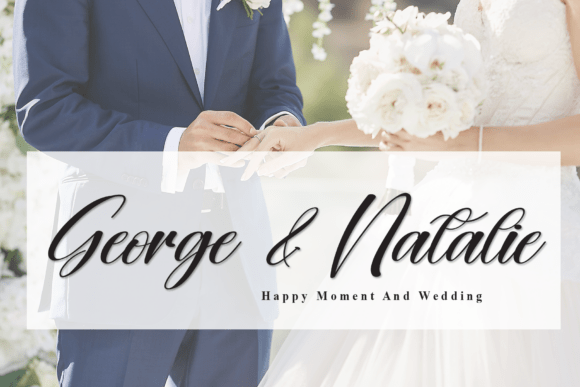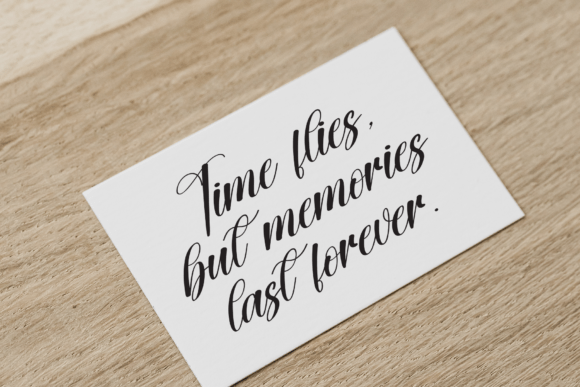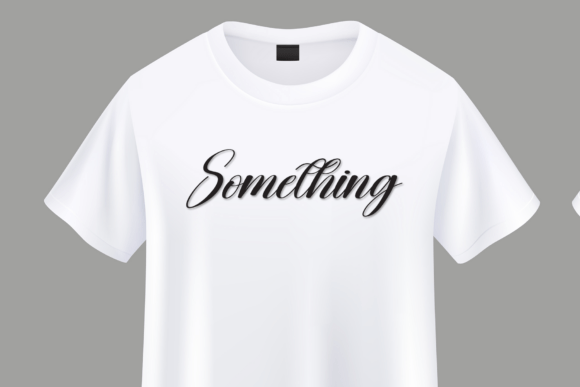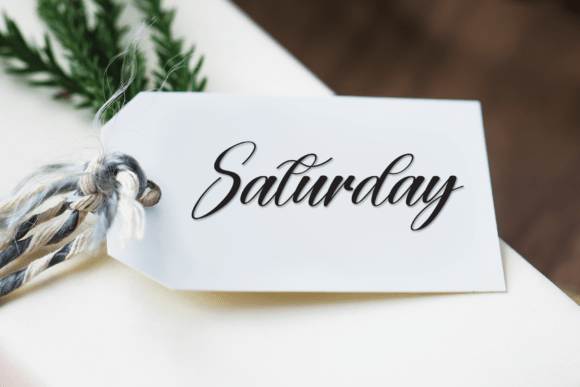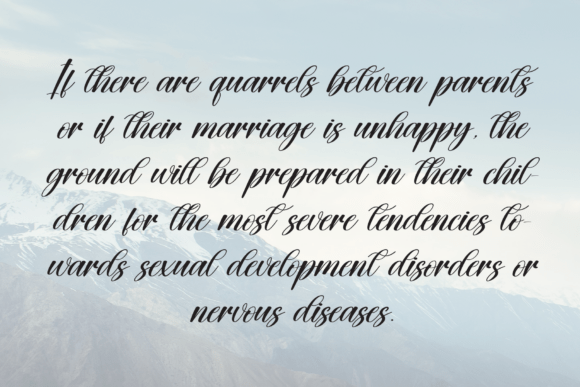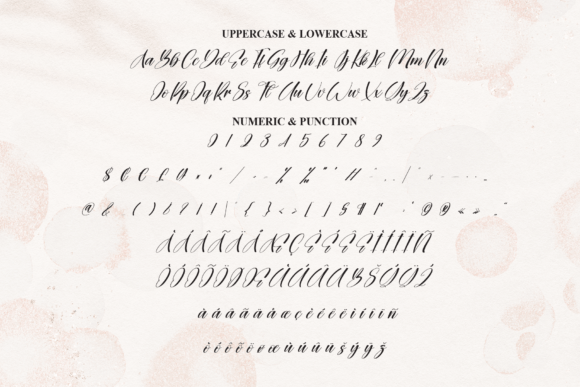
The Beauty of Aesthetic Font: Elevate Your Designs with Elegance and Sophistication
In the world of typography, few fonts manage to capture the essence of elegance and contemporary charm as effortlessly as Aesthetic Font. This stylish script font has been turning heads with its graceful strokes, fluid curves, and meticulously crafted letterforms. Whether you’re a designer looking to elevate your branding, a crafter seeking the perfect font for your handmade projects, or simply someone who appreciates the beauty of well-crafted typography, Aesthetic Font is sure to impress.
The Allure of Aesthetic Font
So, what makes Aesthetic Font so special? For starters, its design is deeply rooted in the art of hand-drawn calligraphy, but with a modern twist that sets it apart from more traditional fonts. The result is a font that feels both timeless and contemporary, capable of adding a touch of sophistication to any design. The fluid curves and graceful strokes of Aesthetic Font give it a natural flow that’s hard to find in more rigid, uniform fonts.
Another key feature of Aesthetic Font is its versatility. Whether you’re working on a logo, invitation, packaging, or social media graphics, this font is up to the task. Its refined and polished details make it perfect for projects that require a bit of luxury and elegance. At the same time, its approachable, friendly feel ensures that it won’t come across as too formal or intimidating.
Applications of Aesthetic Font
One of the things that sets Aesthetic Font apart from other fonts is its wide range of applications. Here are just a few examples of how you can use this beautiful font to elevate your designs:
- Logos: If you’re looking to create a logo that exudes elegance and sophistication, Aesthetic Font is an excellent choice. Its unique letterforms and fluid curves make it perfect for branding projects that require a bit of luxury.
- Invitations: Whether you’re planning a wedding, birthday party, or other special event, Aesthetic Font is a great choice for your invitations. Its refined and polished details make it perfect for formal events, while its friendly feel ensures that it won’t come across as too stuffy.
- Packaging: If you’re looking to create packaging that stands out on store shelves, Aesthetic Font can help. Its unique design and elegant feel make it perfect for luxury brands that want to make a statement.
- Social Media Graphics: Aesthetic Font is also a great choice for social media graphics, such as Instagram posts, Facebook headers, and more. Its friendly feel and polished details make it perfect for engaging with your audience and adding a bit of personality to your online presence.
Tips for Using Aesthetic Font
While Aesthetic Font is incredibly versatile, there are a few tips to keep in mind to get the most out of this beautiful font:
- Use it sparingly: While Aesthetic Font is incredibly elegant, it can be overwhelming if used too much. Try using it as a headline or title font, and pairing it with a simpler font for body text.
- Experiment with colors: Aesthetic Font looks great in a variety of colors, from rich jewel tones to soft pastels. Don’t be afraid to experiment with different color combinations to find the one that works best for your design.
- Pay attention to spacing: Aesthetic Font has a natural flow that’s easy to read, but it’s still important to pay attention to spacing. Make sure to leave enough room between letters and lines to create a clean and elegant look.
In conclusion, Aesthetic Font is a truly special font that offers a unique combination of elegance, sophistication, and versatility. Whether you’re a designer, crafter, or simply someone who appreciates beautiful typography, this font is sure to impress. With its graceful strokes, fluid curves, and meticulously crafted letterforms, Aesthetic Font is the perfect choice for any project that requires a bit of luxury and refinement. So why wait? Give Aesthetic Font a try today and see the difference it can make in your designs!